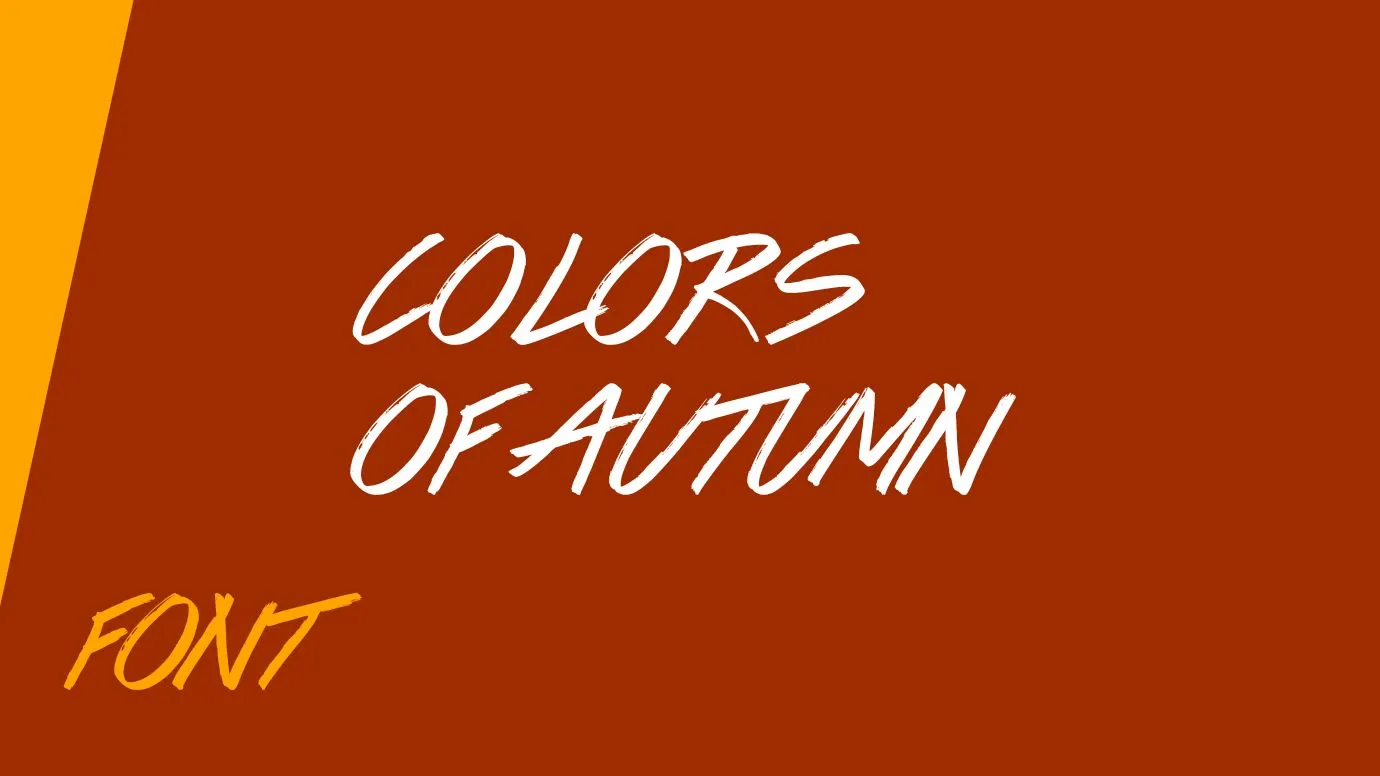
Are you interested in using a stylish and lovely typeface in your project? Riviera Signature Font is a beautiful, handwritten typeface with a unique and modern twist. This typeface was designed by a Mexican typeface designer.
This typeface is available in different styles, weights, and formats. It is available in Regular and Bold styles. This typeface is a great choice for branding projects, wedding invitations, and other design projects that require a modern and sophisticated touch.
It has a complete set of characters including uppercase and lowercase letters, numerals, punctuation, and symbols. This typeface is similar to the dreamlight font. It also supports many languages.
Designer of Riviera Signature Font
This stylish and amazing typeface is designed by Mexico-based typeface designer Manuel Fernandez del Campo Garcia for the foundry Brada in 2018.
This font style is created with a unique and regular style. This single attractive style is a combination of characteristics, including capital alphabets, small alphabets, punctuations, glyphs, digits, symbols, special characters, and a large number of language support.
| Name | Riviera Signature Font |
| Designer | Manuel Fernandez del Campo Garcia |
| Foundry | Brada |
Is Riviera Signature typeface a good font?
This typeface is a good font for branding projects, wedding invitations, and other design projects that require a modern and sophisticated touch.
Is Sketchy Signature typeface the same as Riviera Font?
No, Sketchy Signature typeface is not the same as Riviera style. Riviera Font is a script-typeface with a unique and modern twist. Sketchy Font is a sans-serif typeface with a distressed, hand-drawn look.